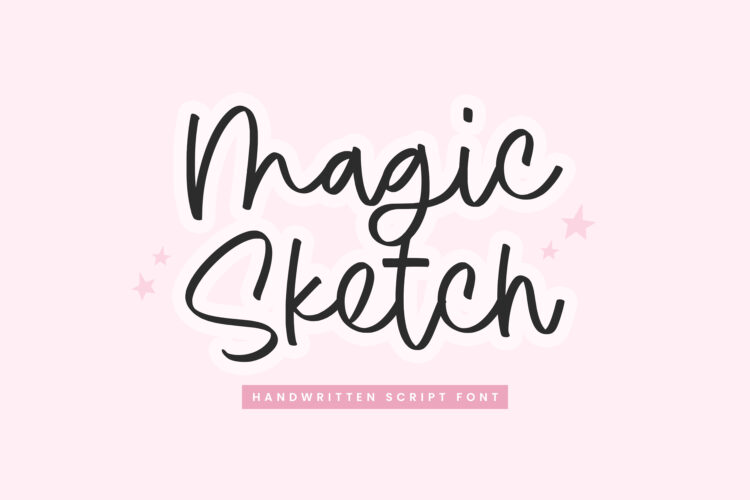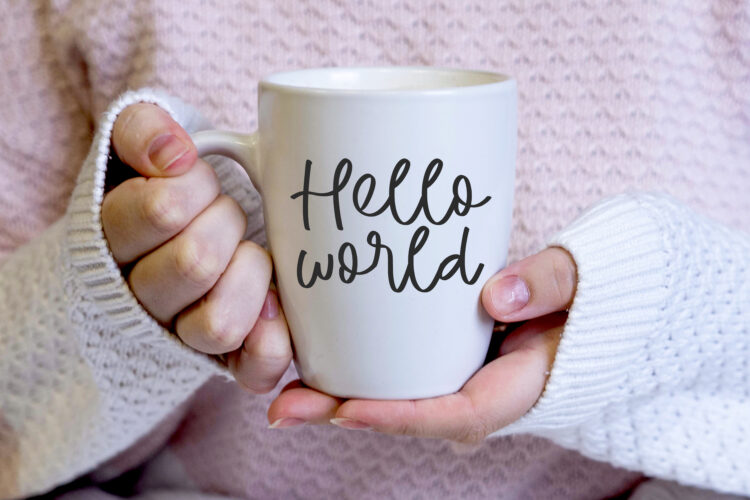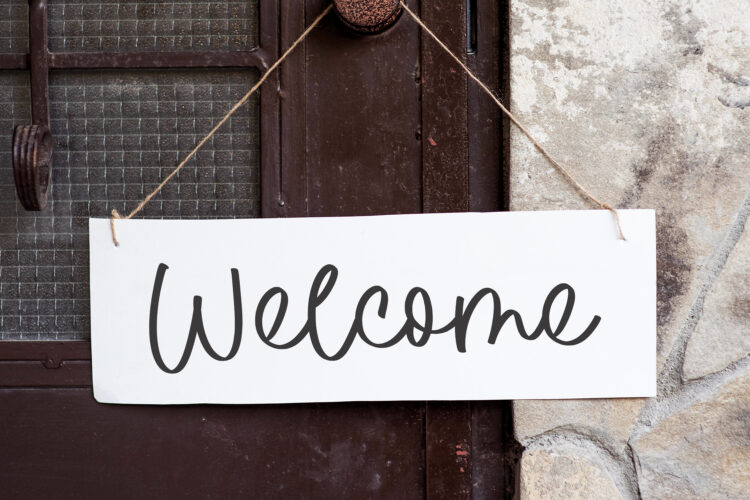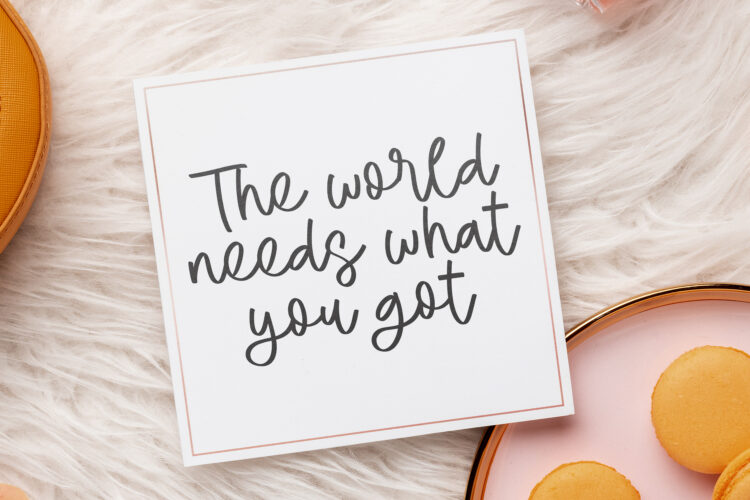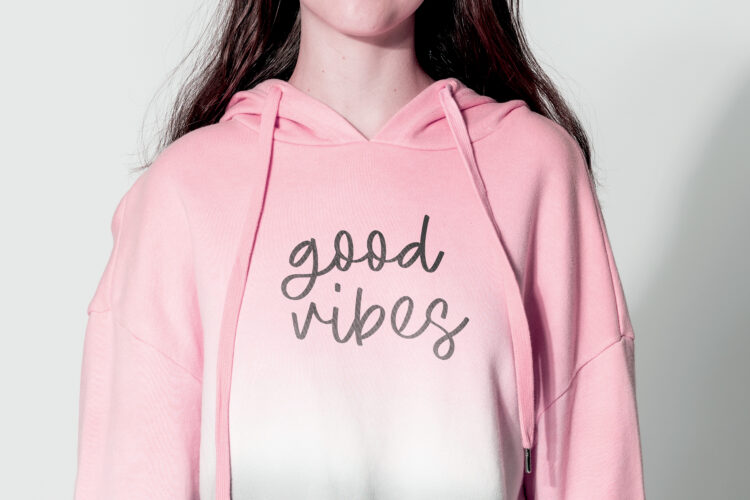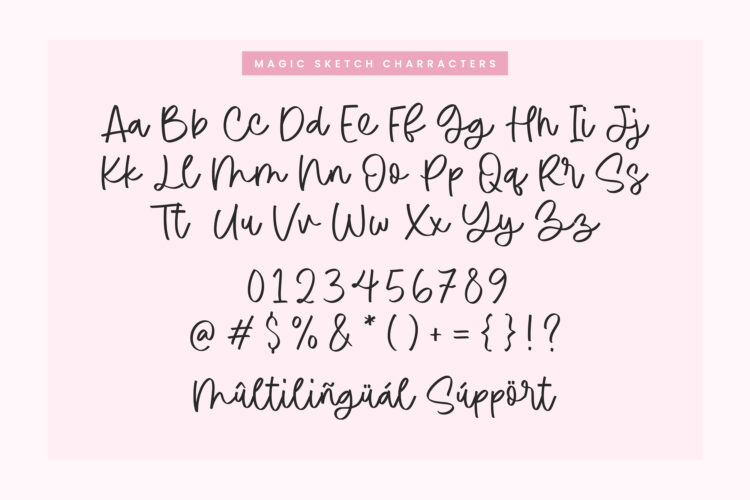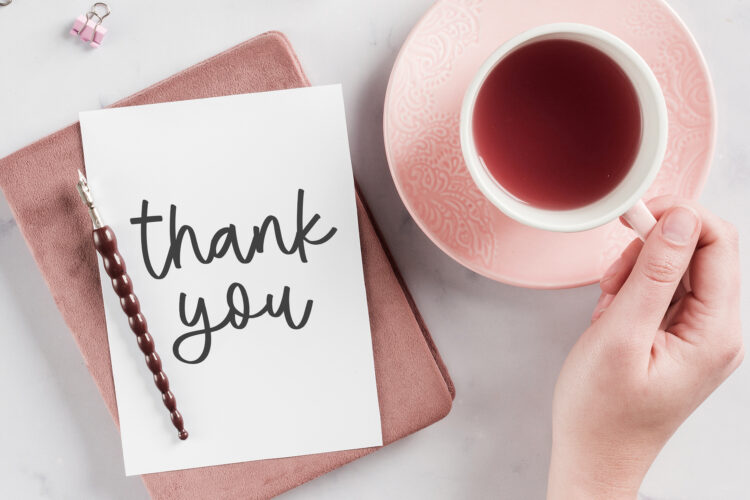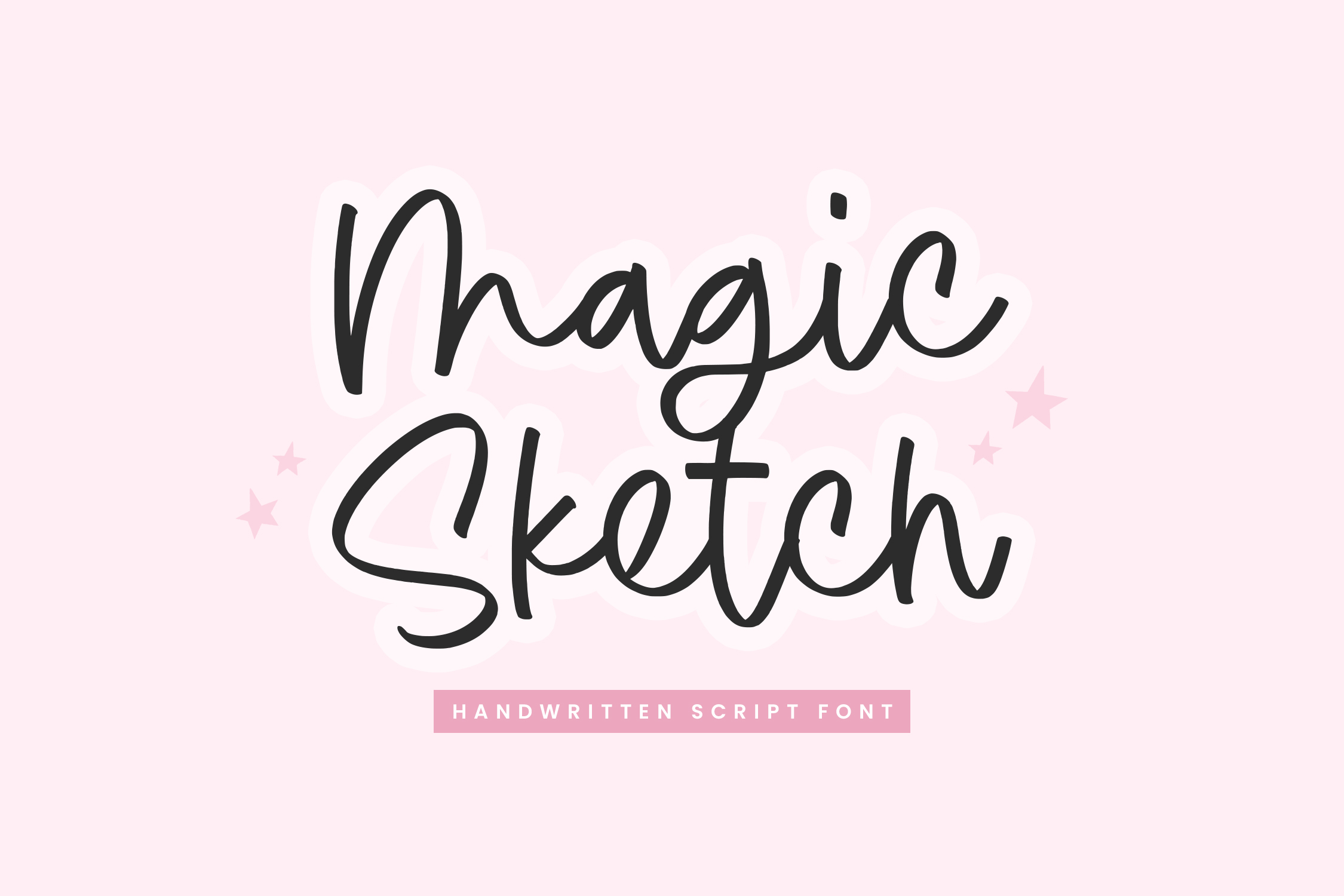
Magic Sketch is a Handwritten Script Font
This font is a handwritten script font that captures the feel of natural, free flowing pen strokes with a slightly rough, sketch like texture. It blends casual handwriting with artistic imperfections, giving it a playful yet expressive look. This style is often used warmth to designs such as logos, quotes, invitations, and creative branding, where a human touch is desired. Like many modern script fonts, it balances readability with decorative flair, making it suitable for both digital and print projects.
Magic Sketch Font also supports multilingualism